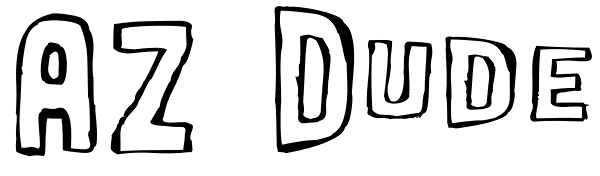
AZ Dude
AZ Dude font was inspired from many miscellaneous hand written slogans on a school text book covers. This font utilizes an "old look" to the line work which is designed to have a "worn feel" to it. Ideal for use as headline or sub-head text in you...